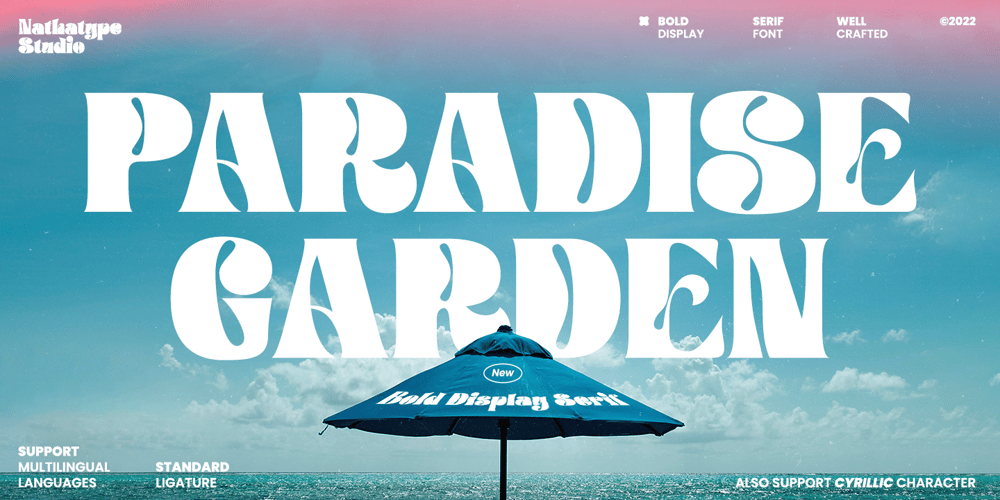
Paradise Garden Font Family was designed by Donis Miftahudin and published by Nathatype. Paradise Garden contains 1 styles and family package options. Would you like a professional, yet friendly looking design? If so, Paradise Garden is the best option.Paradise Garden is a serif font in thick weights and round shapes. Due to the weight and shape, this font expresses cute, friendly impressions on your designs. Its main characters are first, the noticeable differences between the thick and the thin lines and second, vertical and horizontal hooks or little wipes on the edges of each letter. It is better applied for big texts for a legibility purpose.You can also enjoy fascinating features on this font.Features: Ligatures Stylistic Sets Multilingual Supports PUA Encoded Numerals and Punctuations Paradise Garden fits for various design projects, such as posters, banners, logos, book covers, album covers, quotes, invitations, greeting cards, printed products, social media, etc. Find out more ways to use this font by taking a look at the font preview.Feel free to contact us if you require more information when you are dealing with a problem. Thank you. Happy designing.